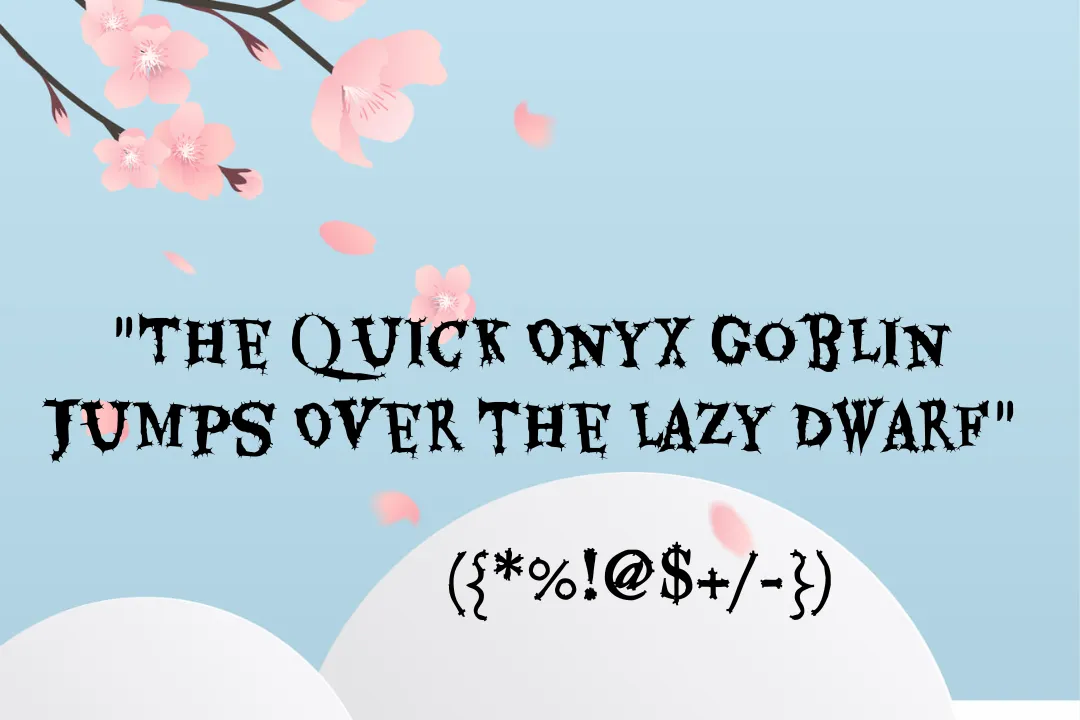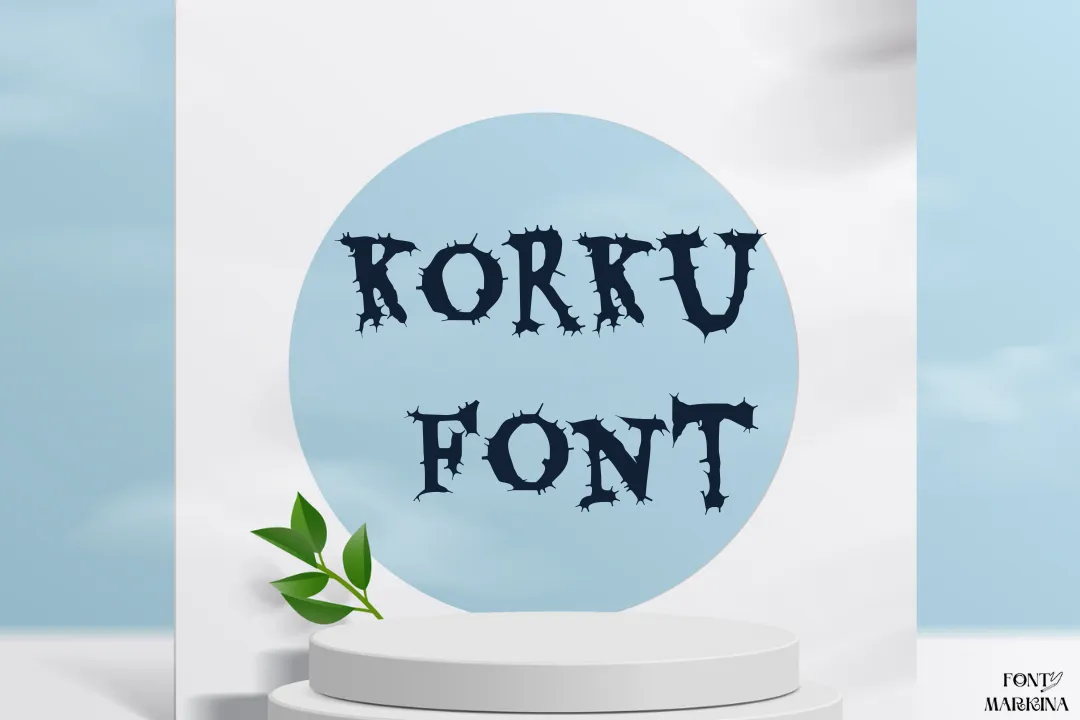
Hey! here for anyone who is interested in fonts, we described Korku Font for more incredible design. It lies in the classification of the Brush family of fonts. This font was finally created by multiple designers in Linotype Foundry.
Different textures that are related to this one are attainable on google fonts. It is renowned because of its wide corners and striking look. Its unique styles make it captivating for various designs. The copy-and-paste function of this typography makes it impressive in the field of textual design projects.
The beauty and the Beast font and another danger font are similar to this one due to the same styles and look. The online tool known as the generator tool is a very helpful feature of this font in order to conversion of graphic designs.
Uses of Korku Font
After day by day, the use of the font is common in the industry but for good-looking designs, the right font is very essential. so, because of its classic and bright features, this texture is used in a vast variety of ways. It is effective for the Canva program. Almost in the business sector, hundreds of projects are done by using this family like reports, certificates, billboards, and much more.
Students make and prepare their presentations related to multiple topics by utilizing this family. One more amazing feature for all the readers is that you can make a proper strong pairing of this texture with Chalkboard font and enjoy double features. Moreover, you can especially use this texture for logos of various brands, and clothes designs.
Korku Font View
What is Korku Font?
This texture lies in the category of brush family of fonts and is specially designed for logos.
Is Korku perfect for Adobe?
Absolutely this typography is suitable for Adobe and also effective for the Canva program.
What is the generator tool for the Korku typeface?
The online tool known as the generator tool is a very helpful feature of this font in order to conversion of graphic designs.